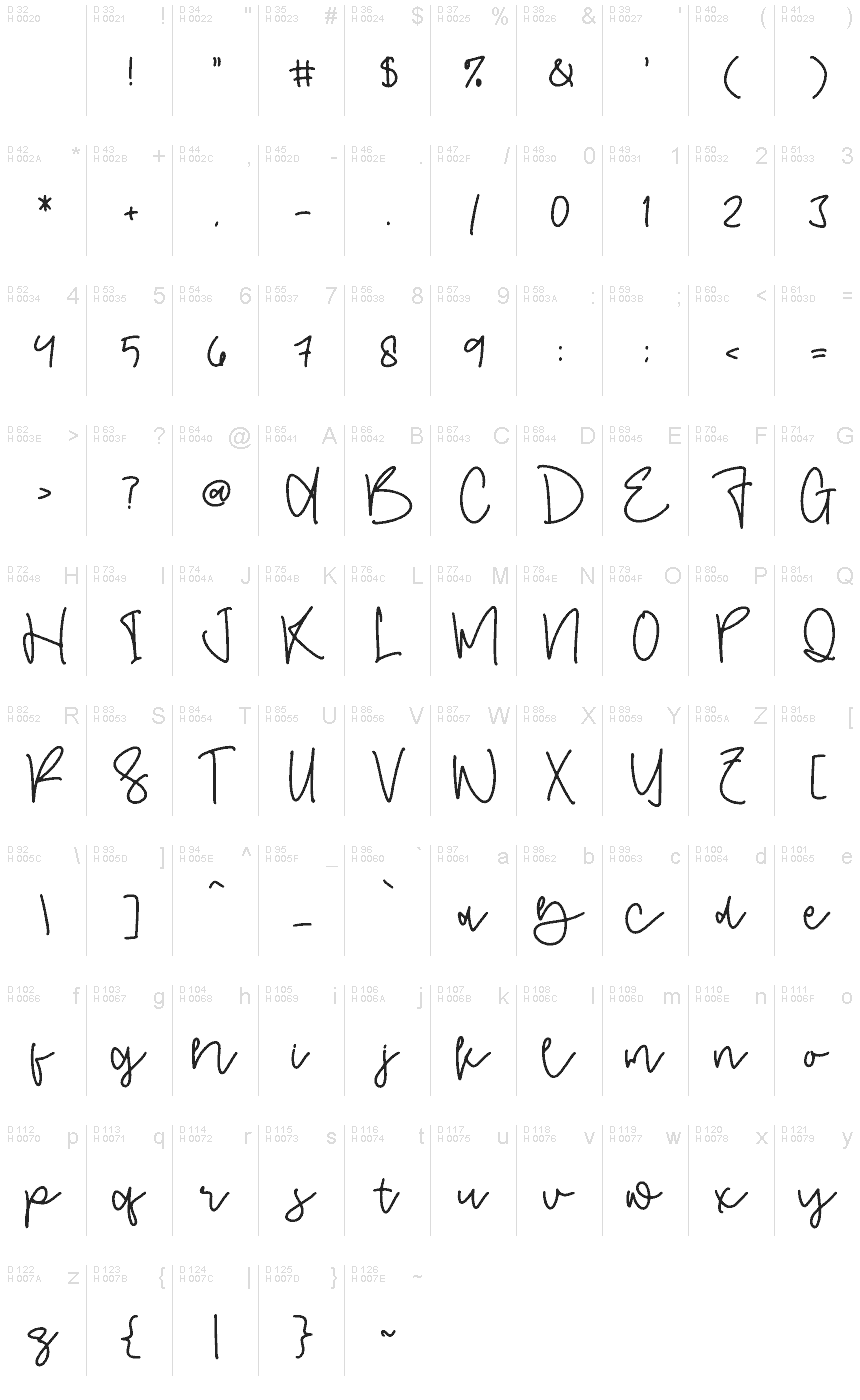
Belligna Sunkiss
Belligna Sunkiss font is a free handwritten font by Perspectype Studio – Letterena.com. Combining expressive, casual, elegant, and stylish strokes, it has all the features of a modern script font. Its flowing design is readable and light, making it the perfect choice for trendy and delicate projects.
Use Belligna Sunkiss in advertising campaigns for perfumes or jewelry items. Use it also in greeting cards, invitations for weddings or ceremonies, social media posts with short texts, logos or branding designs that need an artist signature style.